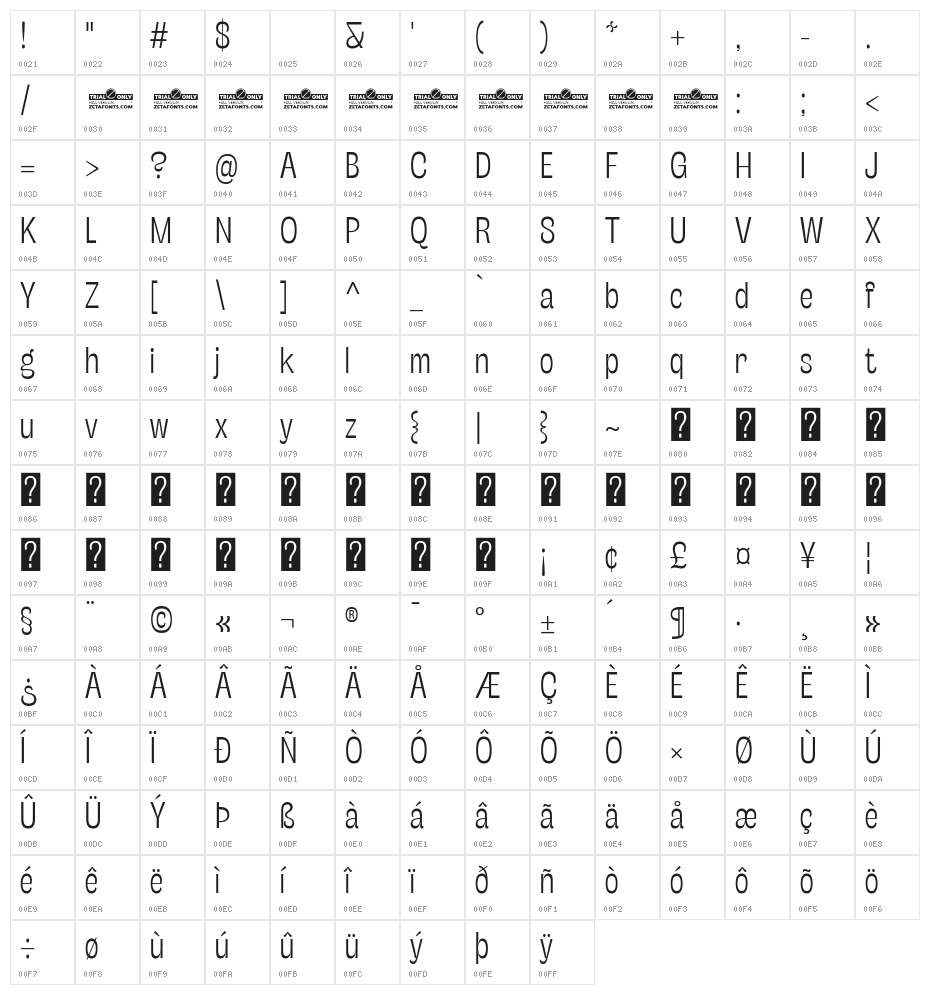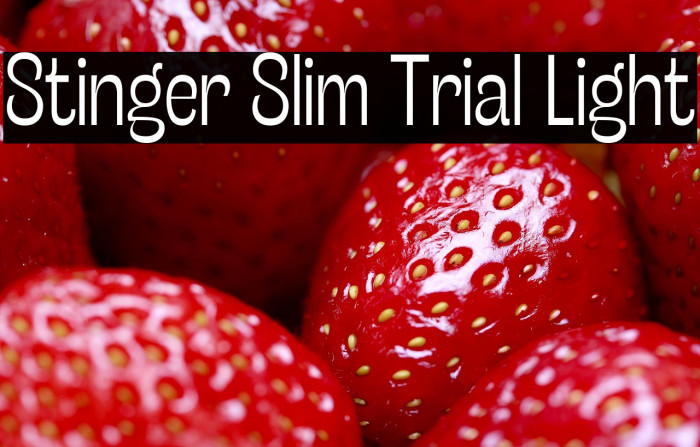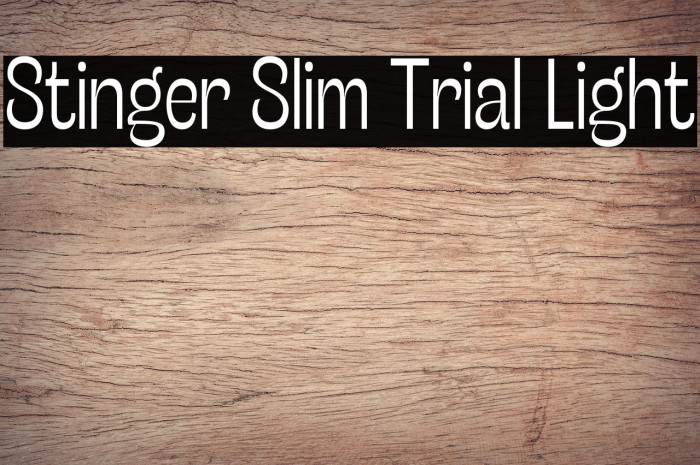
Stinger Slim Trial Light Font
Stinger Slim Trial Light Description
This font features a sleek and modern design with clean lines and a minimalist aesthetic. The characters are tall and narrow, giving it a sophisticated and elegant appearance. The uppercase letters are bold and commanding, while the lowercase letters maintain a consistent style with a slightly softer touch. The numerals are clear and easy to read, making them suitable for various applications. Special characters are included, adding versatility to the font's use. Overall, this font exudes a contemporary vibe, perfect for projects that require a stylish and professional look.
| Proposed Projects | Ideal for branding, editorial design, advertising, and web design projects that require a modern and professional appearance. |